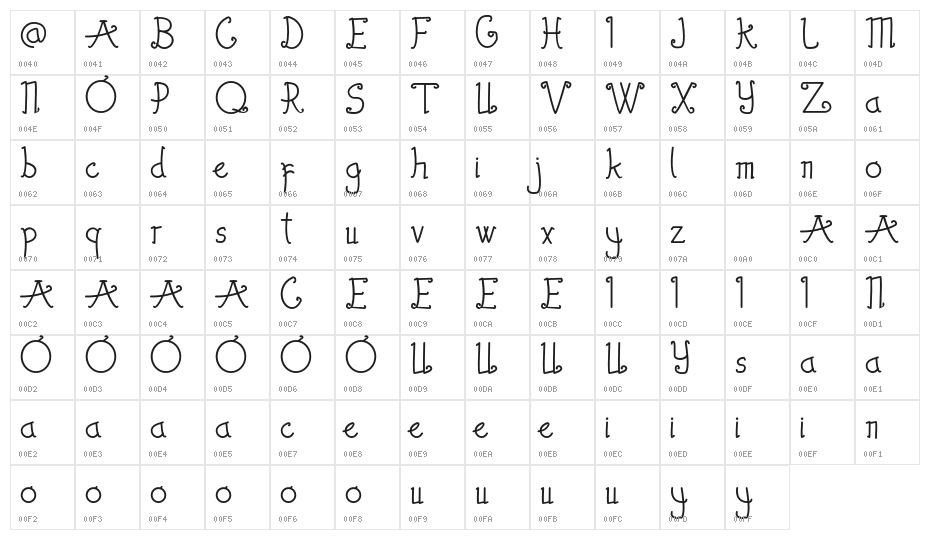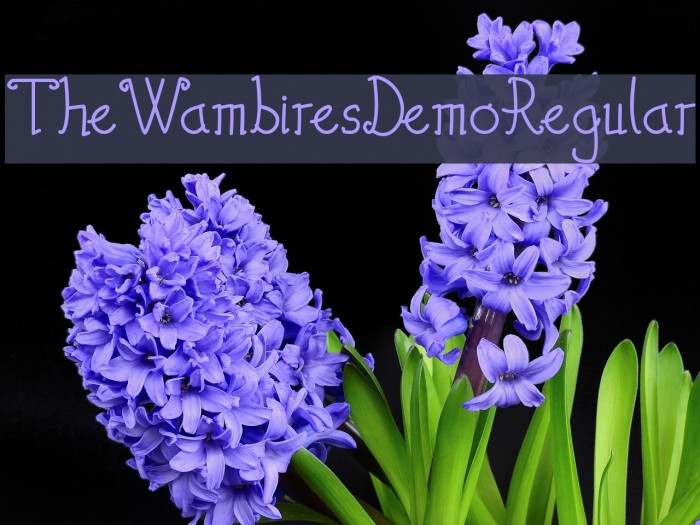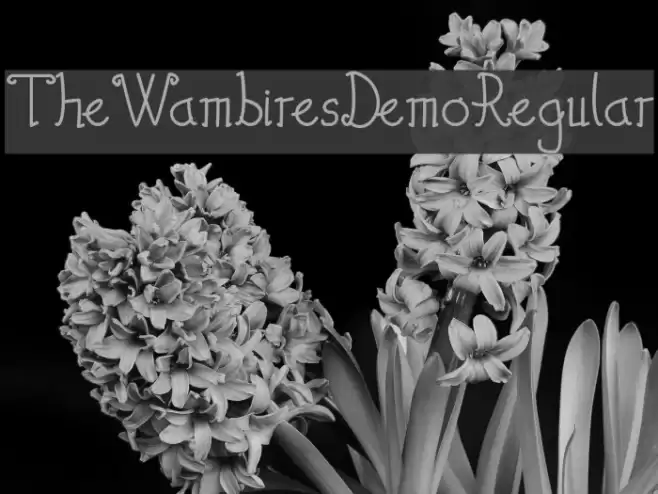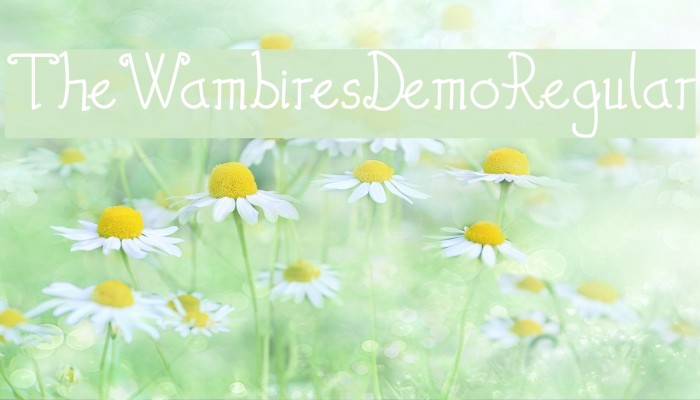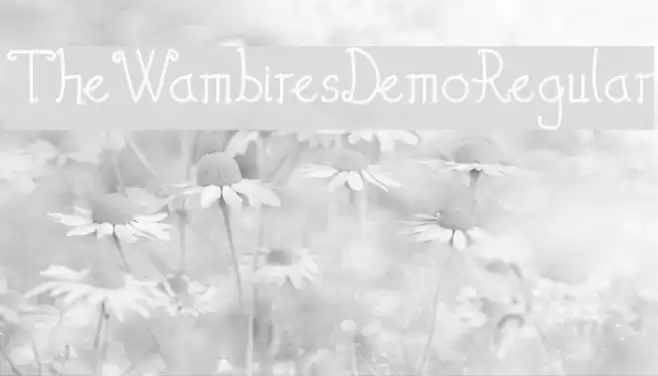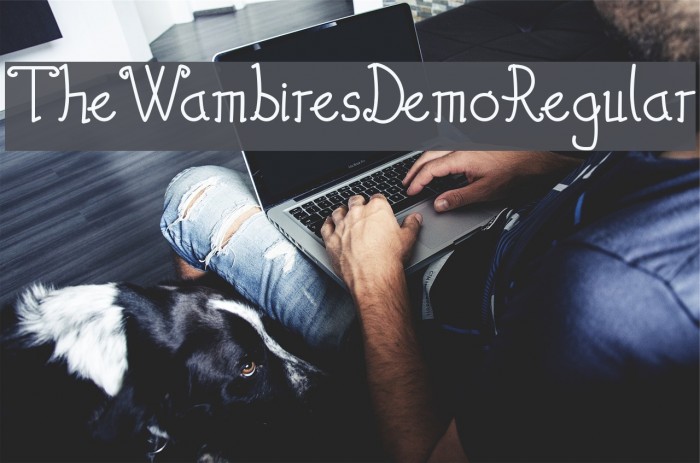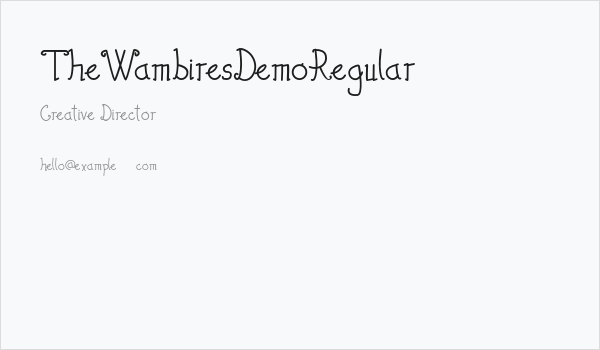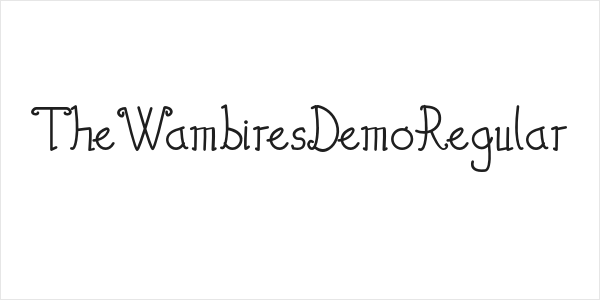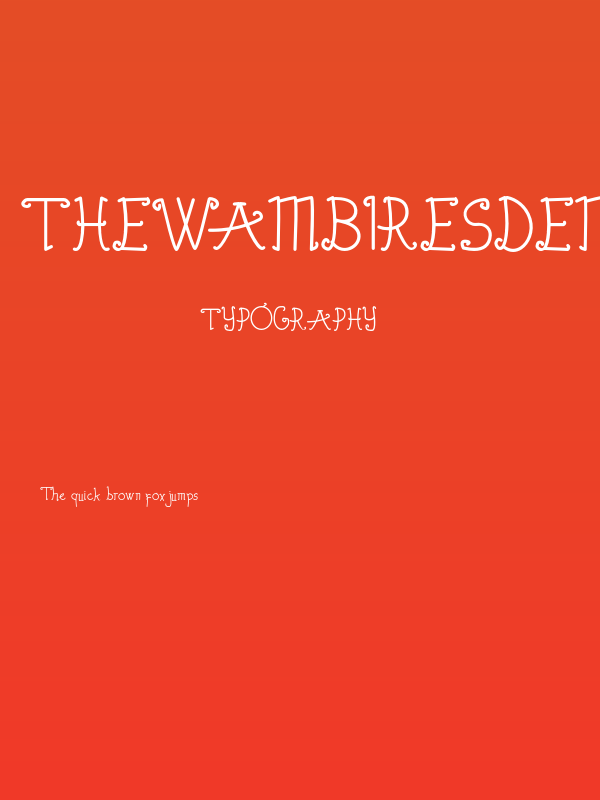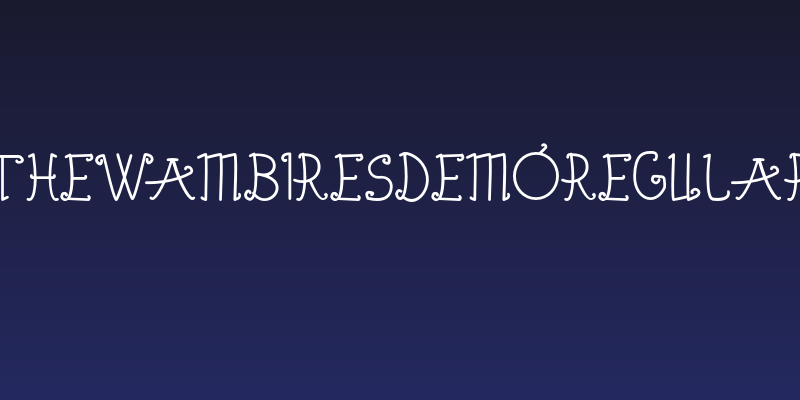
TheWambiresDemoRegular Font
This font features a whimsical and playful design, characterized by its curly and decorative serifs. Each letter has unique embellishments, giving it a hand-drawn, artistic feel. The uppercase letters are tall and slender, with intricate loops and swirls that add a touch of elegance. The lowercase letters maintain the same playful style, with some characters featuring distinctive dots and accents. The numbers and special characters continue this theme, making the font suitable for creative and informal projects.
Overall StylePlayful, Artistic
Use CaseHeadlines, Logos, Creative projects
Proposed ProjectsIdeal for children's books, greeting cards, playful branding, and creative invitations.